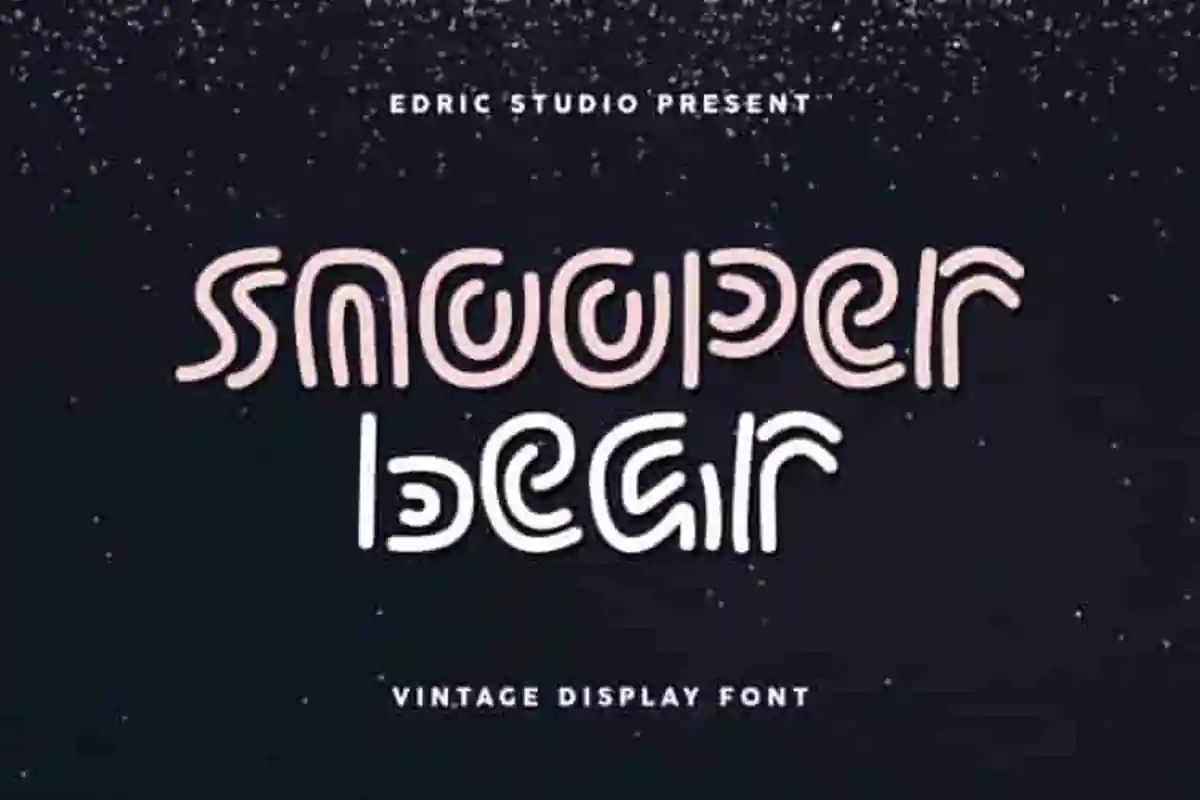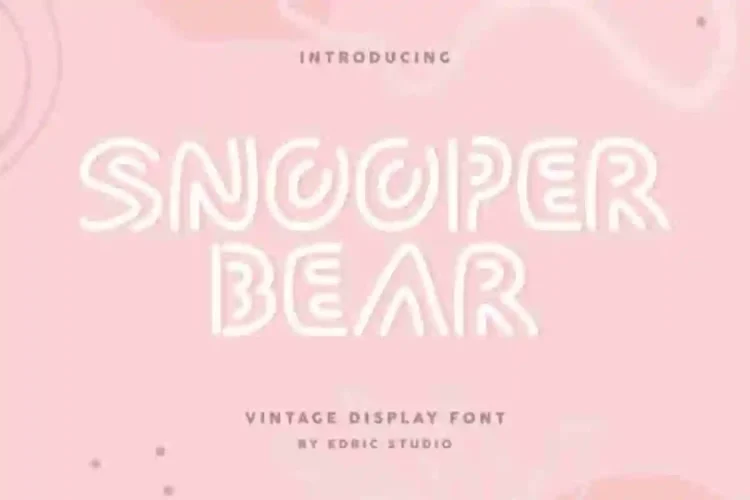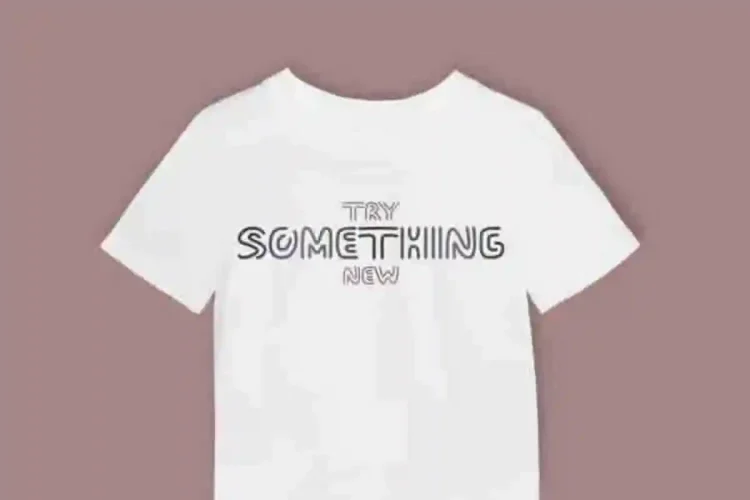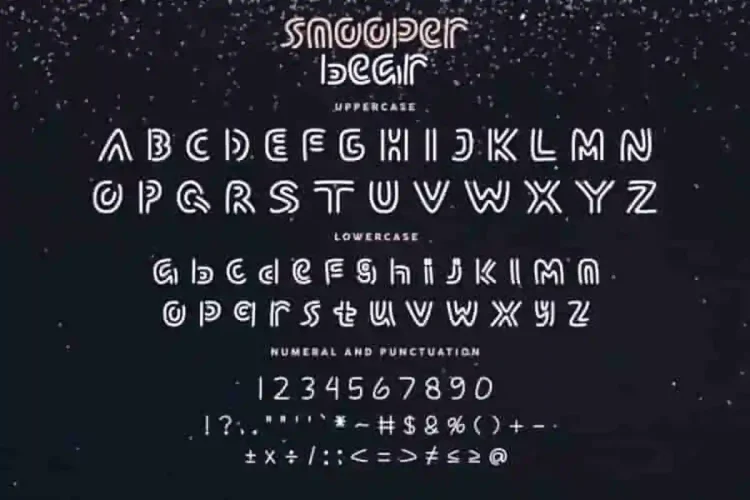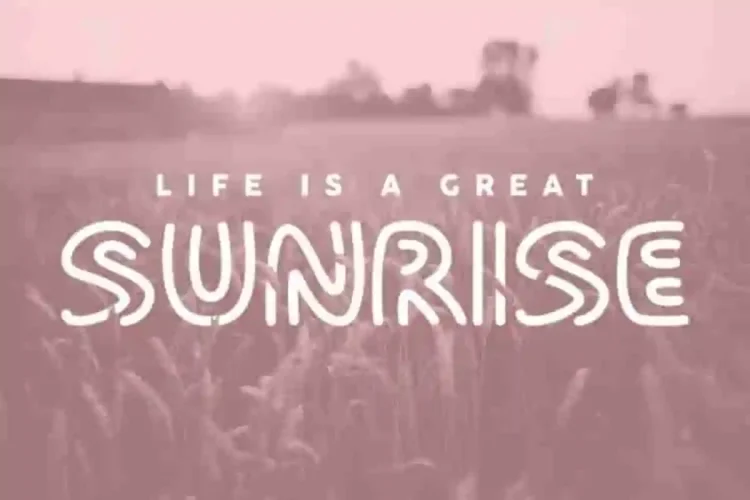
Snooper Bear Display Font
Snooper Bear Display Font is a fancy display font with humor and vintage yet exclusive style. Great for game, vintage flyer, menu or branding. A handcrafted display font designed by Ali and Suci from our Studio in Indonesia.
Snooper Bear Display Font is a unique font for display purpose. This font has a stunning characters set, perfectly managed with well spaced and kerning. The theme style of this font will elegant,  vintage, stylish, sophisticated and classic signature style. You wont find any where else, the font like Snooper Bear Font.